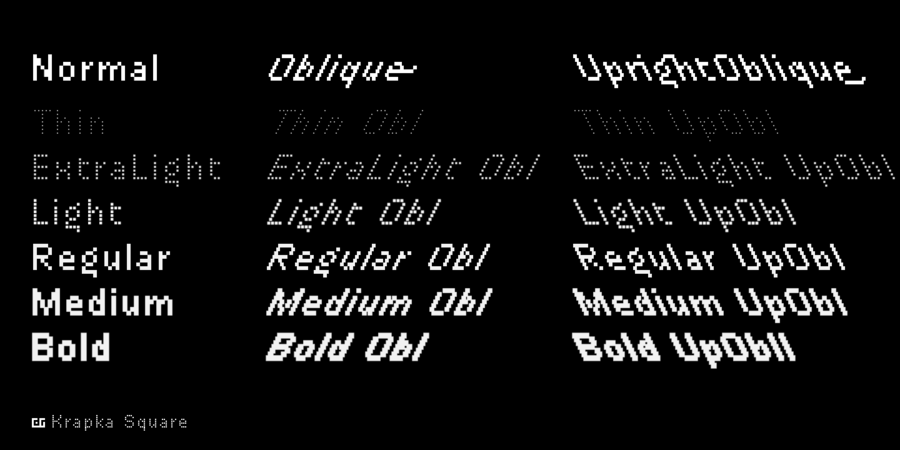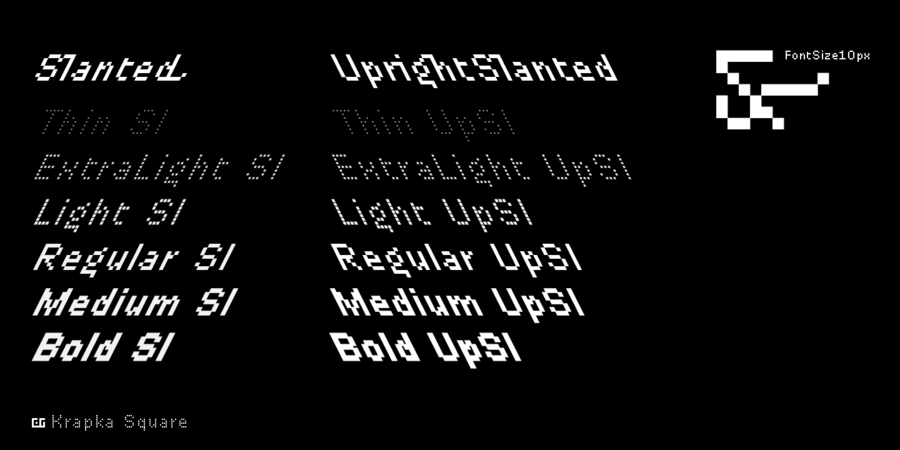
In this font family, the pixel has a square shape. The font supports OpenType features and contains small capitals, ligatures, oldstyle figures, terminal forms, historical forms, stylistic sets. The dingbats, arrows, emoji are also present. For small texts, it is recommended to use DR Krapka Square FontSize10px in the font size 10 px. DR Krapka Square typefamily supported European languages based on Latin, Cyrillic and Greek scripts. If you want to use fonts with a different shape of pixels, there are also typefaces from DR Krapka family: DR Krapka Round, DR Krapka Rhombus. The typeface was designed by Dmytro Rastvortsev in 2020.